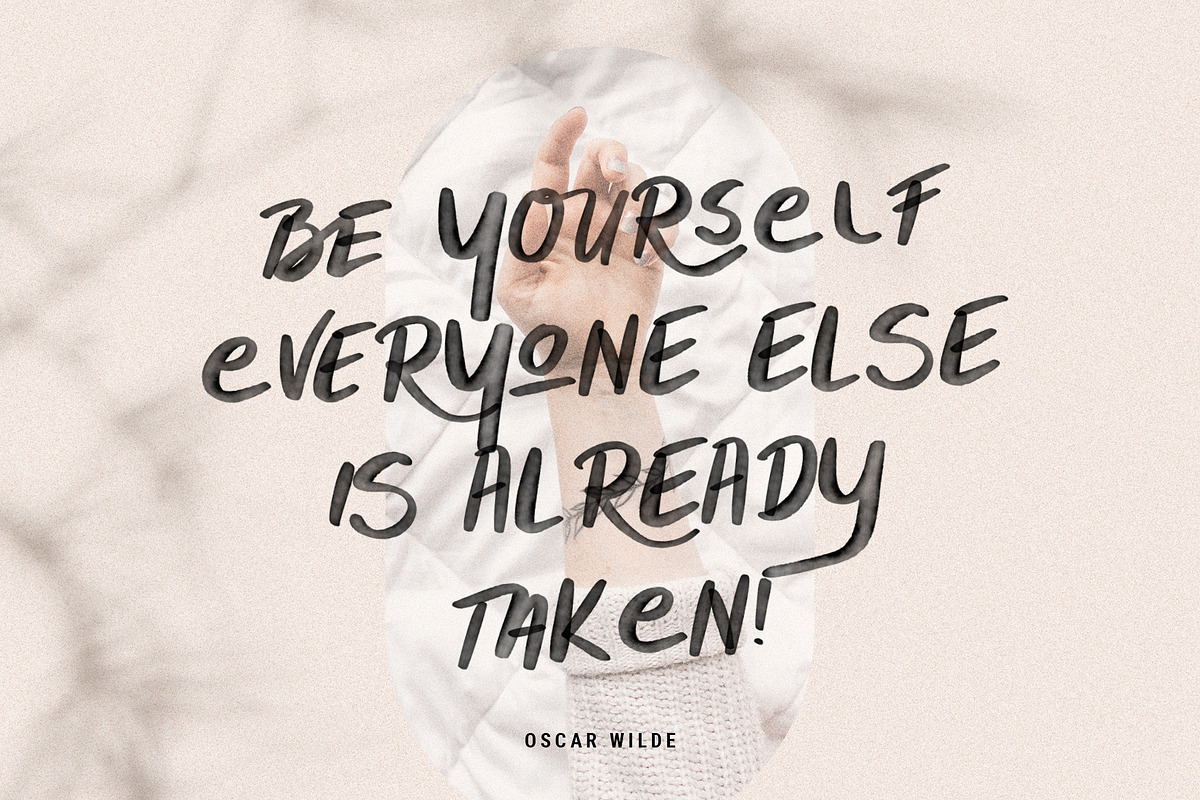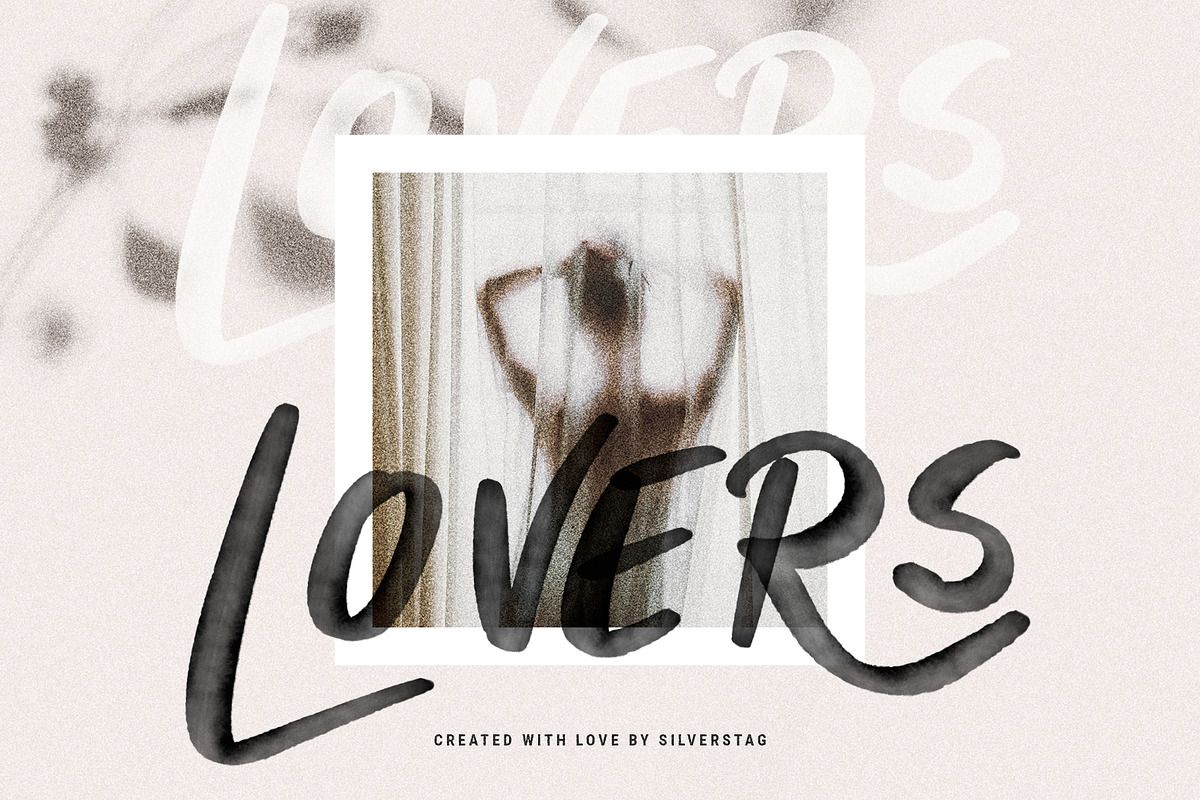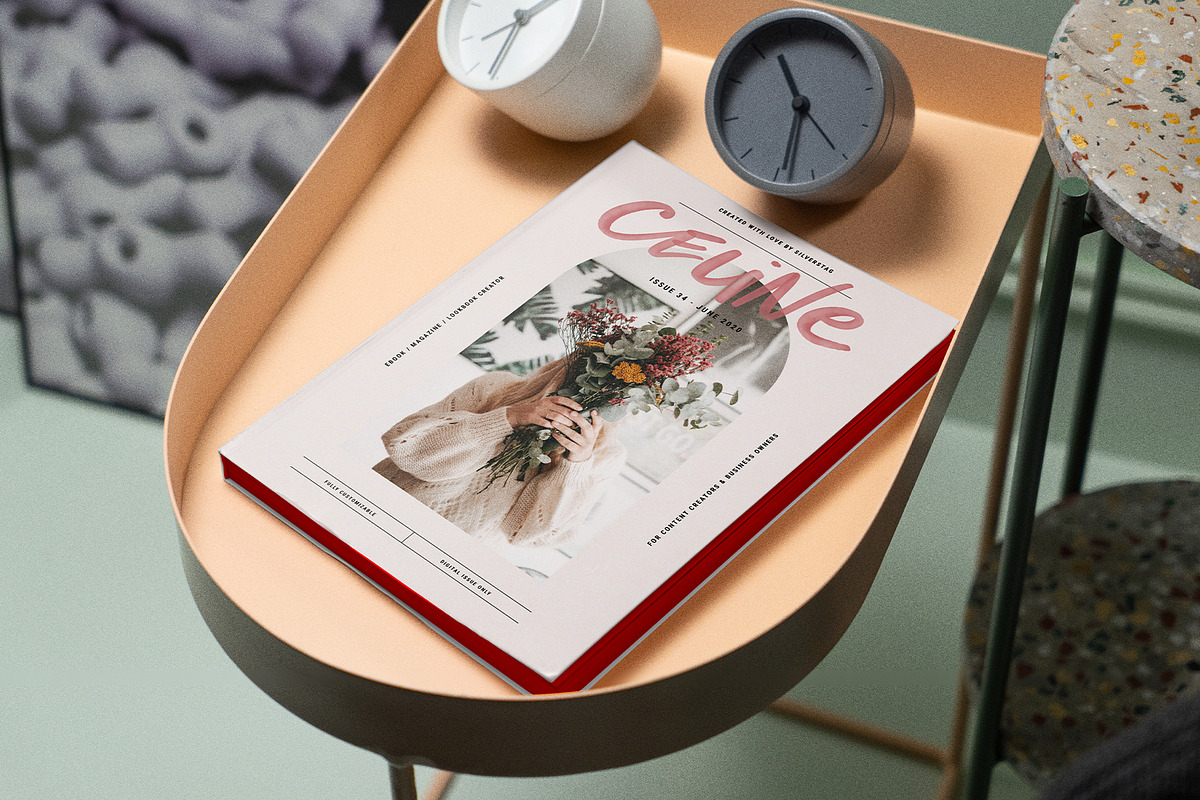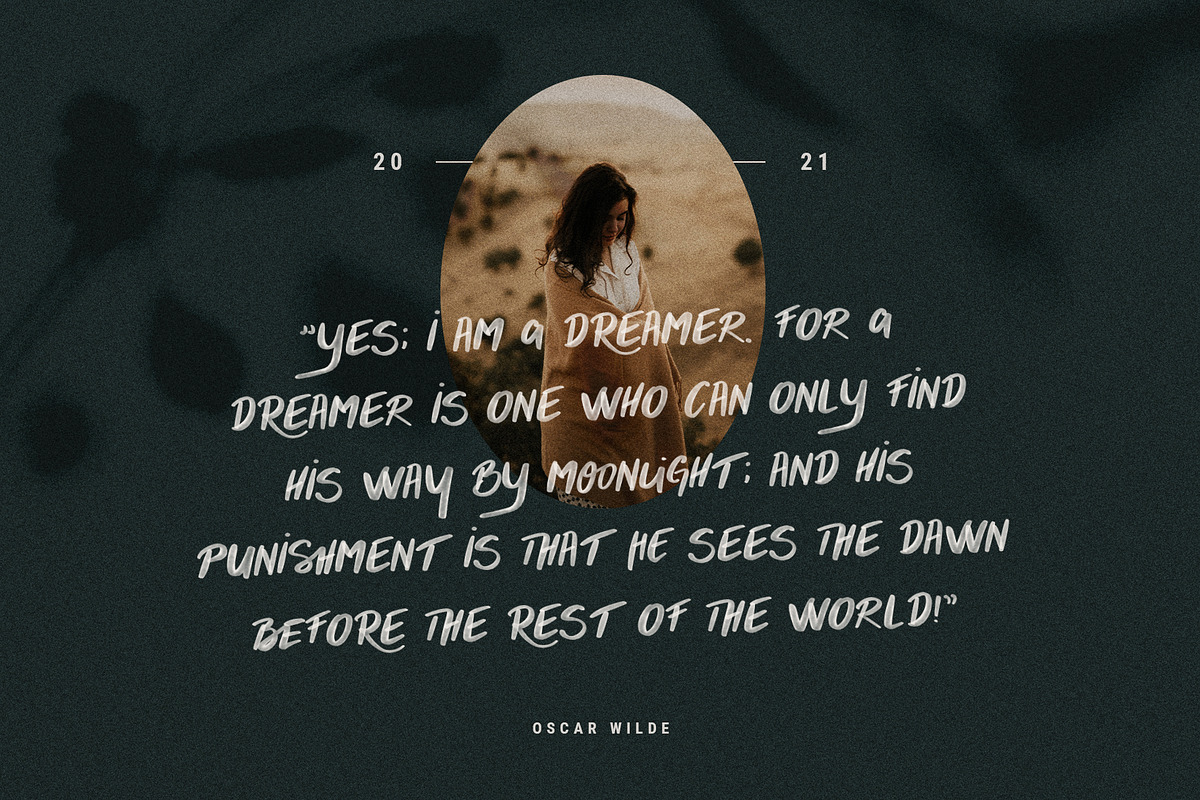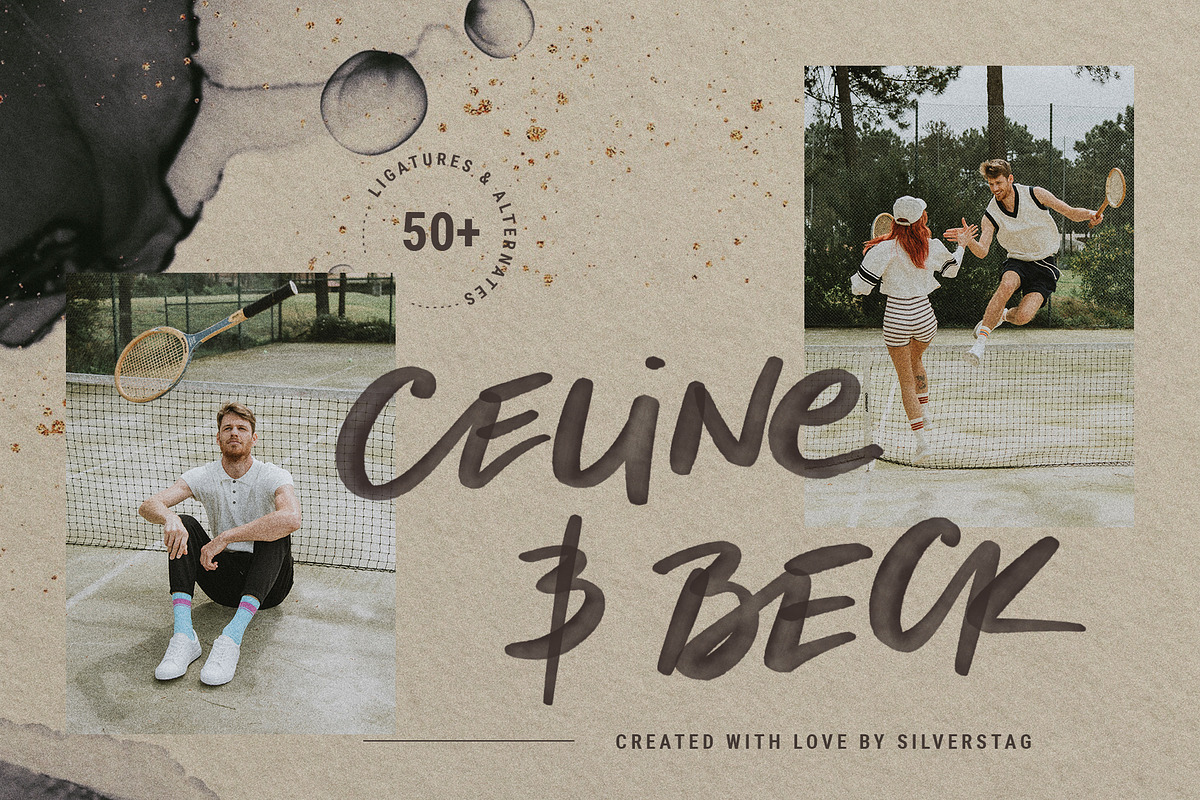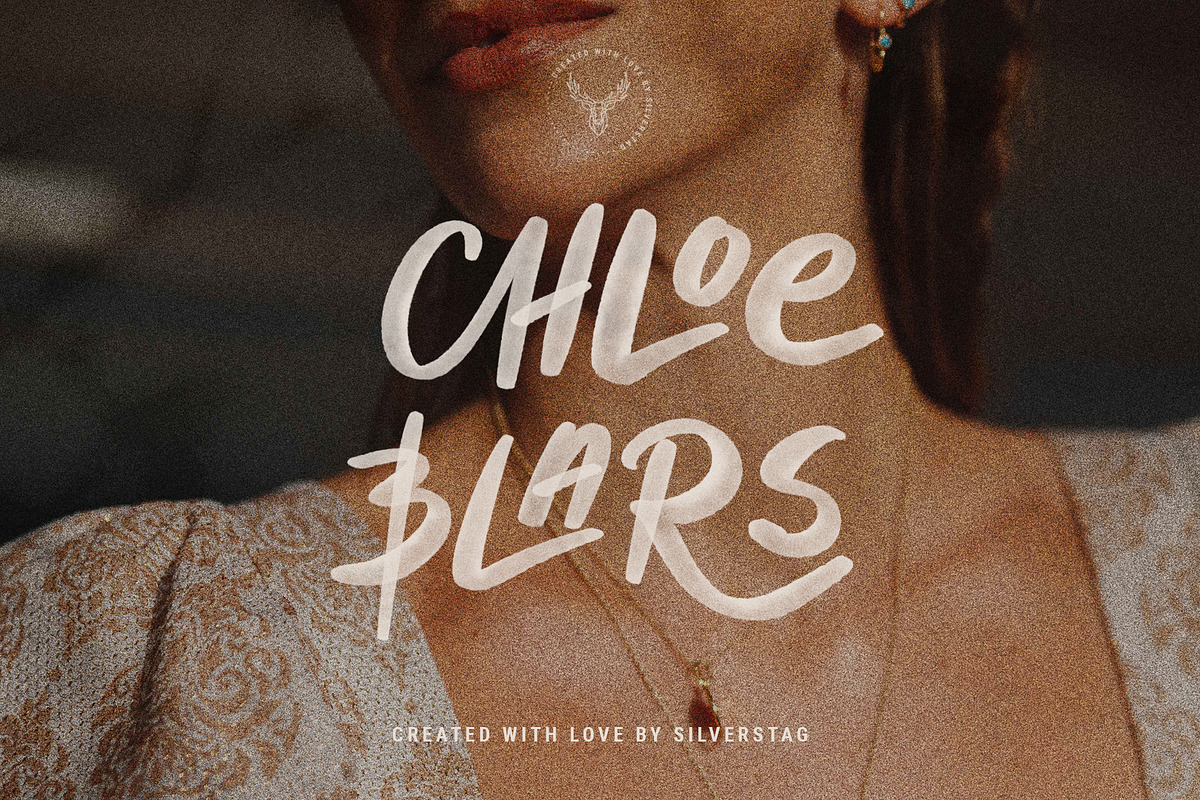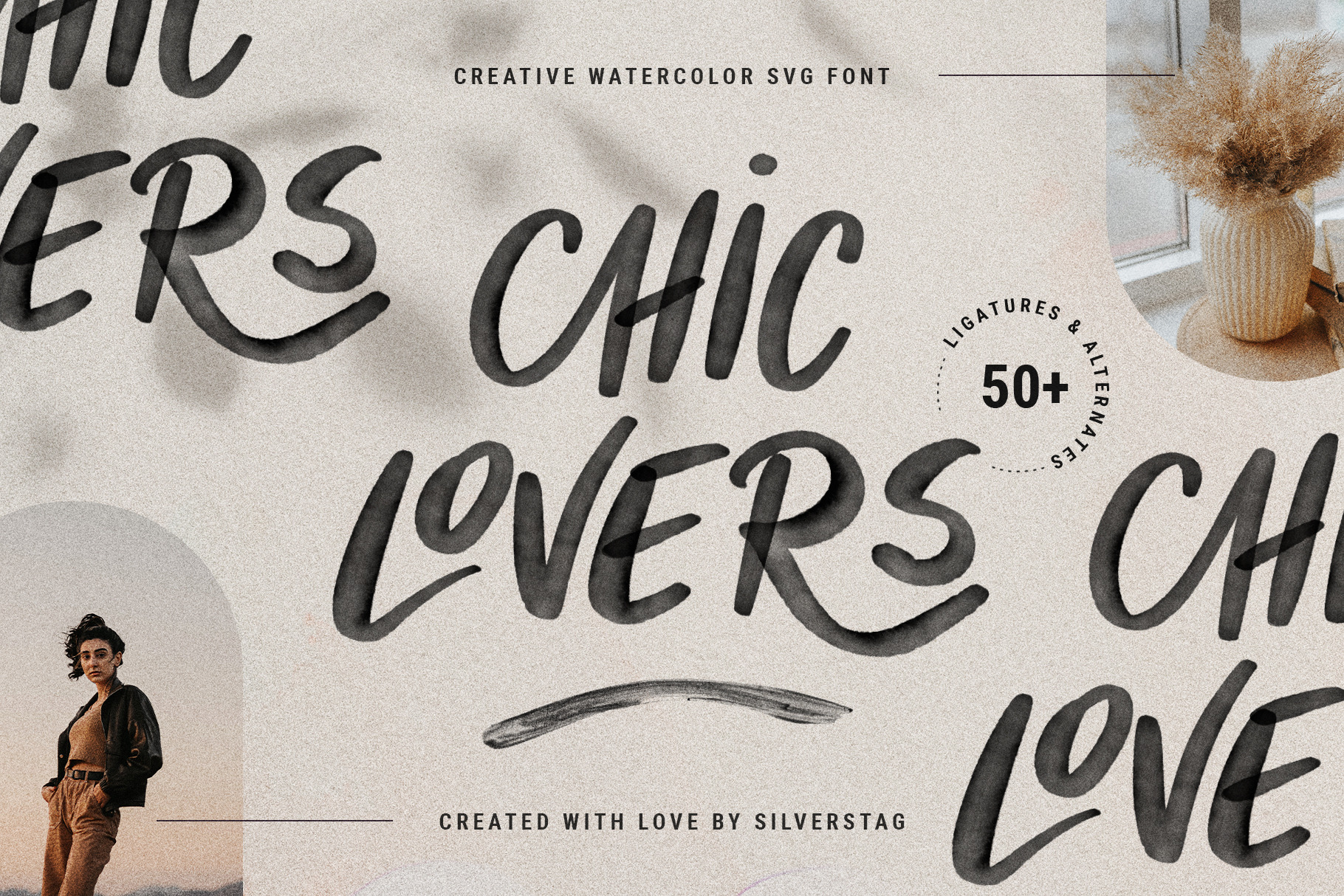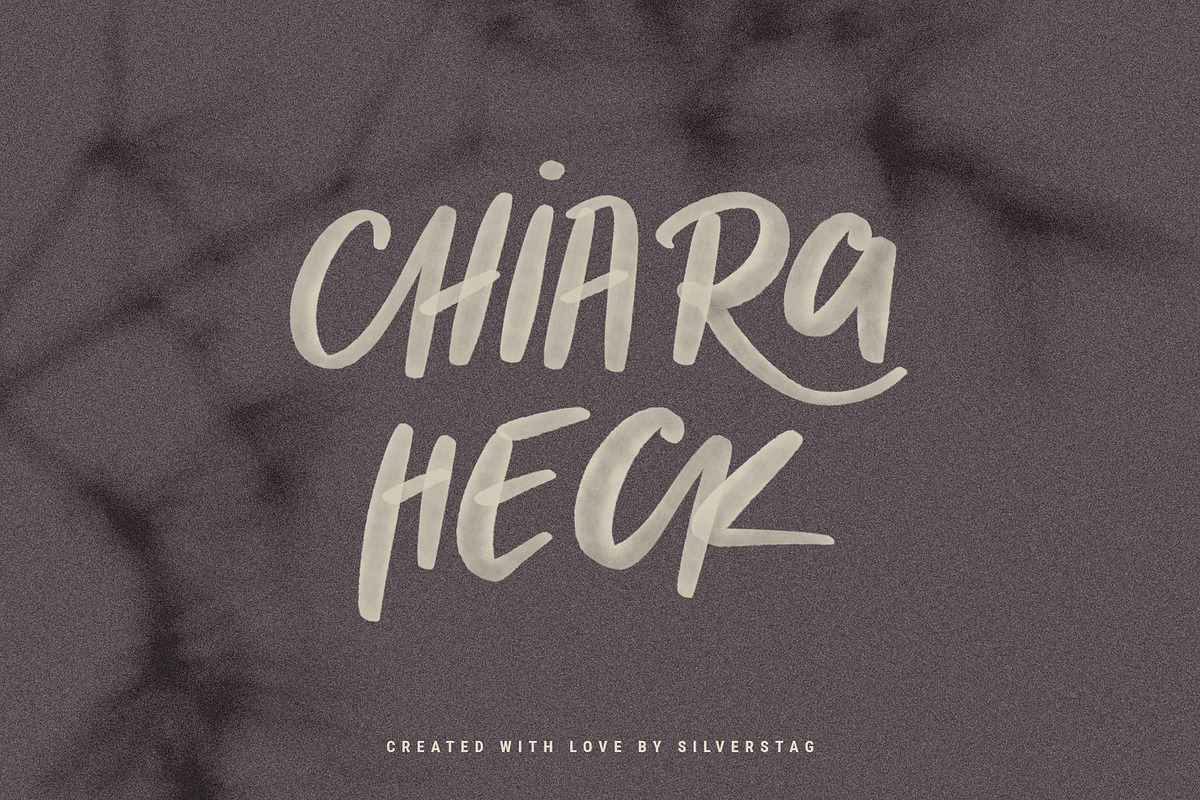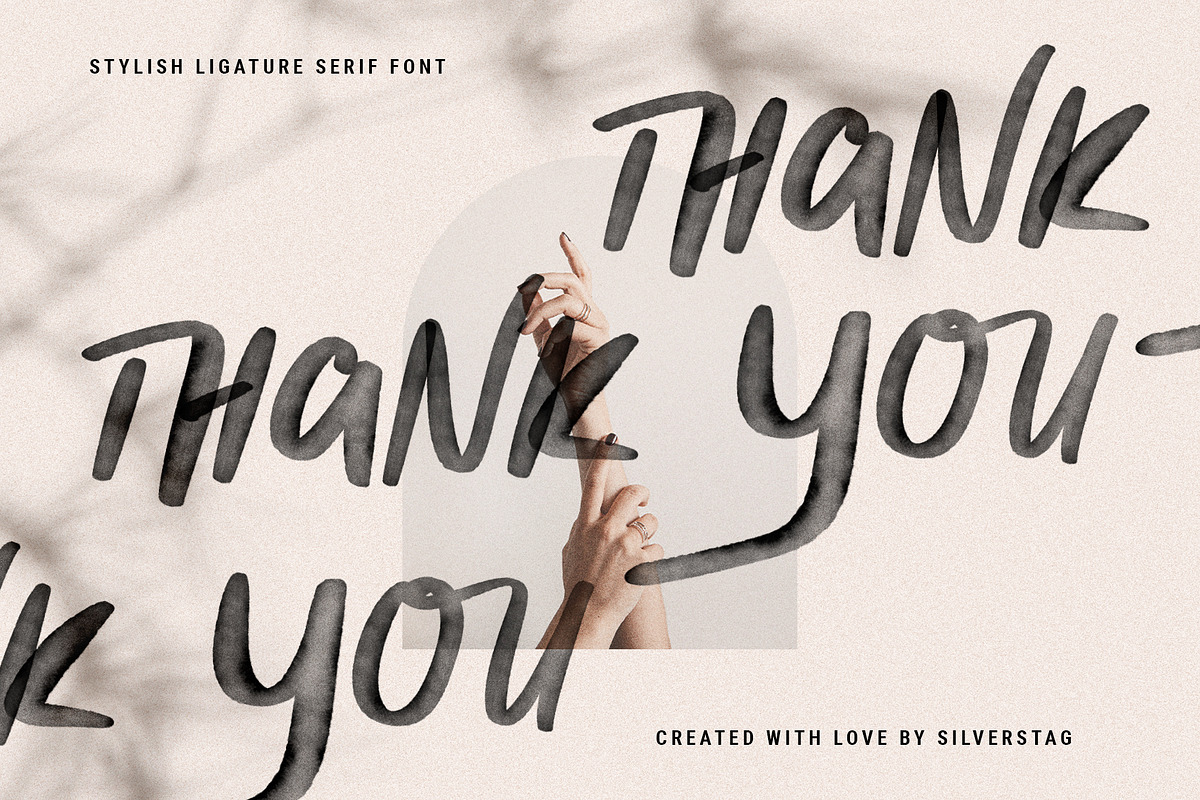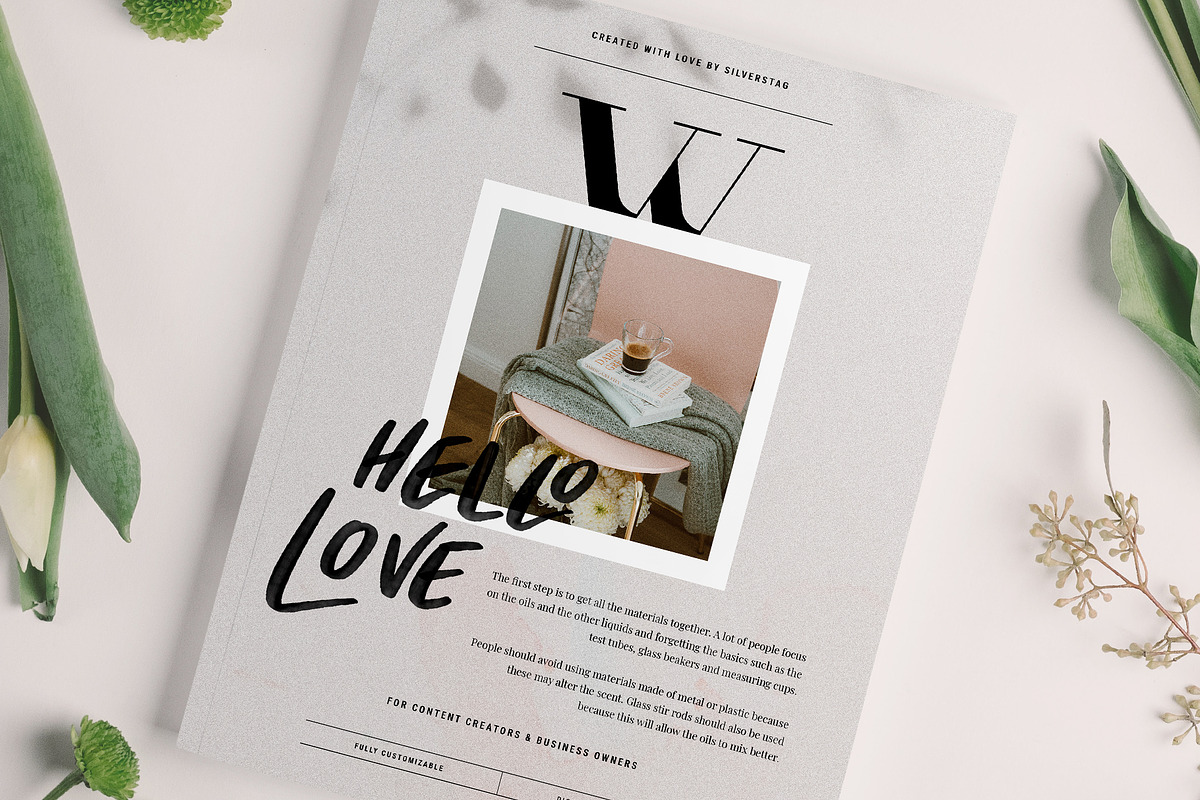
CHIC LOVERS - Watercolor SVG Font
Hey everyone, the summer is almost behind us, but let's all enjoy the rest as much as we can. We definitely all deserved it. Let's raise our glasses to the new ideas, new experiences and to all Chic Lovers out there.
I am supper happy to present you my brand new, handwritten water-color SVG font. It is something I have been working on for quite some time now and I am sure you'll enjoy it's unique and playful look! The true watercolour look will elevate your work and help you create some new and unique designs.
50+ Ligatures and Alternates for a unique handwritten look and feel
LANGUAGE SUPPORT:
SVG Font supports only English, however, the language symbols are included in the PSD File, so you can use it for any other language as well!
The standard font includes the following letters: A À Á Â Ã Ä Å C Ç D Ð E È É Ê Ë I Ì Í Î Ï N Ñ O Ø Ò Ó Ô Õ Ö U Ù Ü Ú Û W Ẃ Ŵ ẄẀ Y Ý Ÿ Ỳ Ÿ Æ Œ ß Þ þ in uppercase and supports Danish, English, French, German, Norwegian Bokmål, Portuguese, Spanish, Swedish.